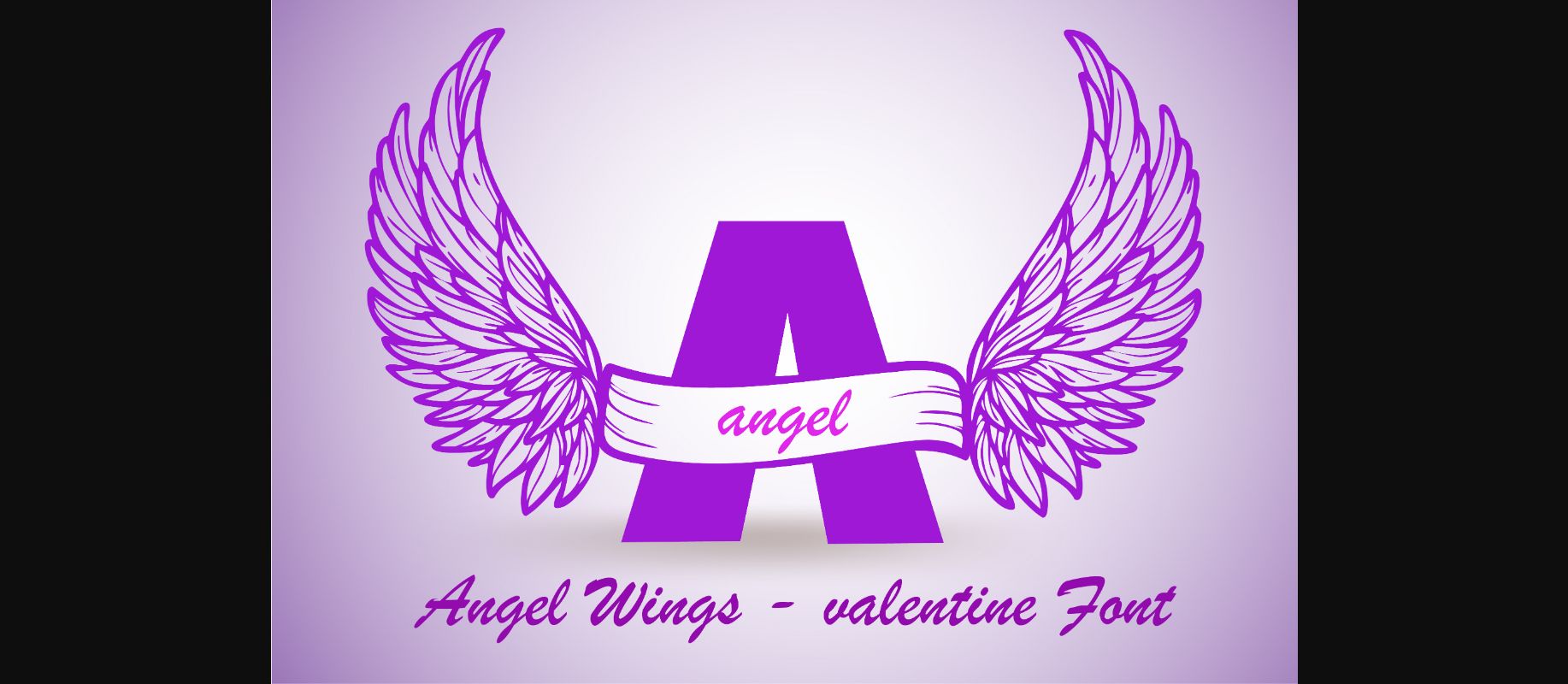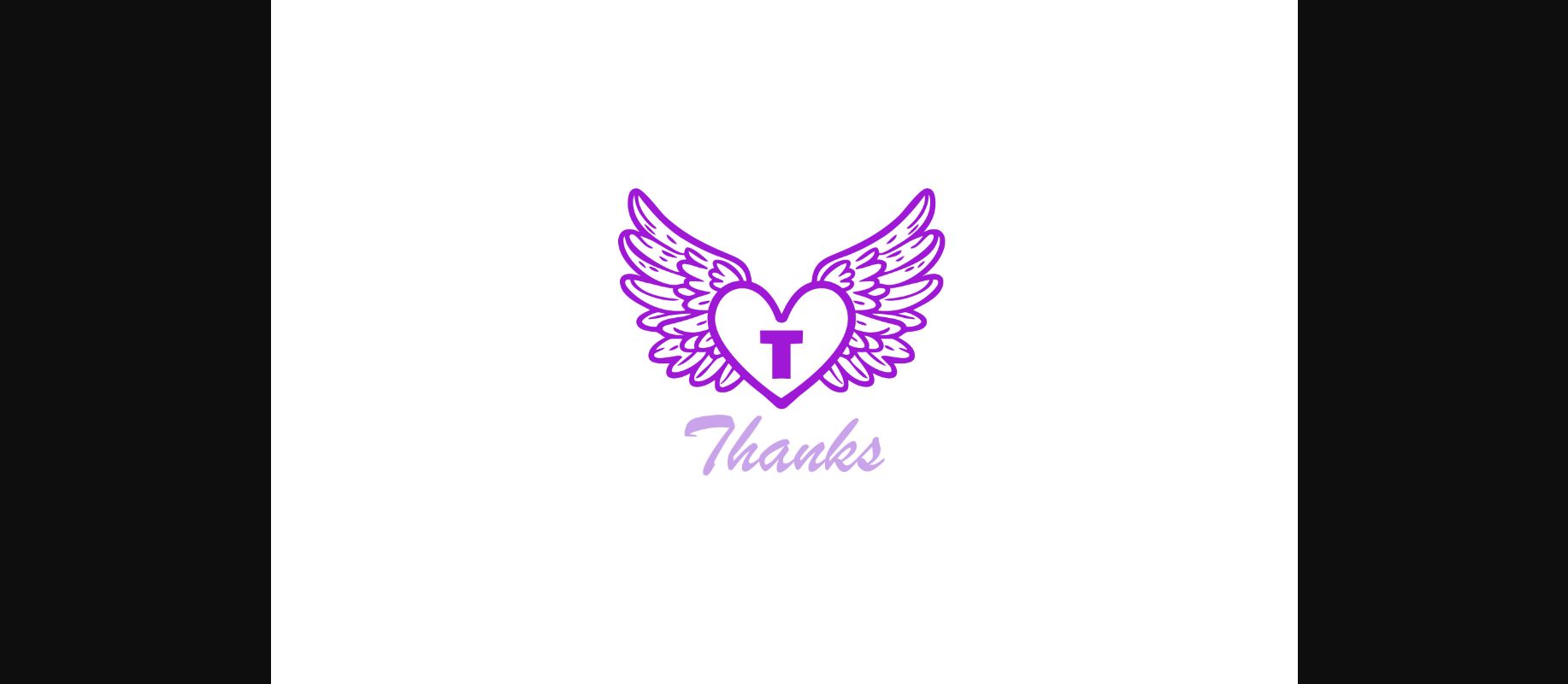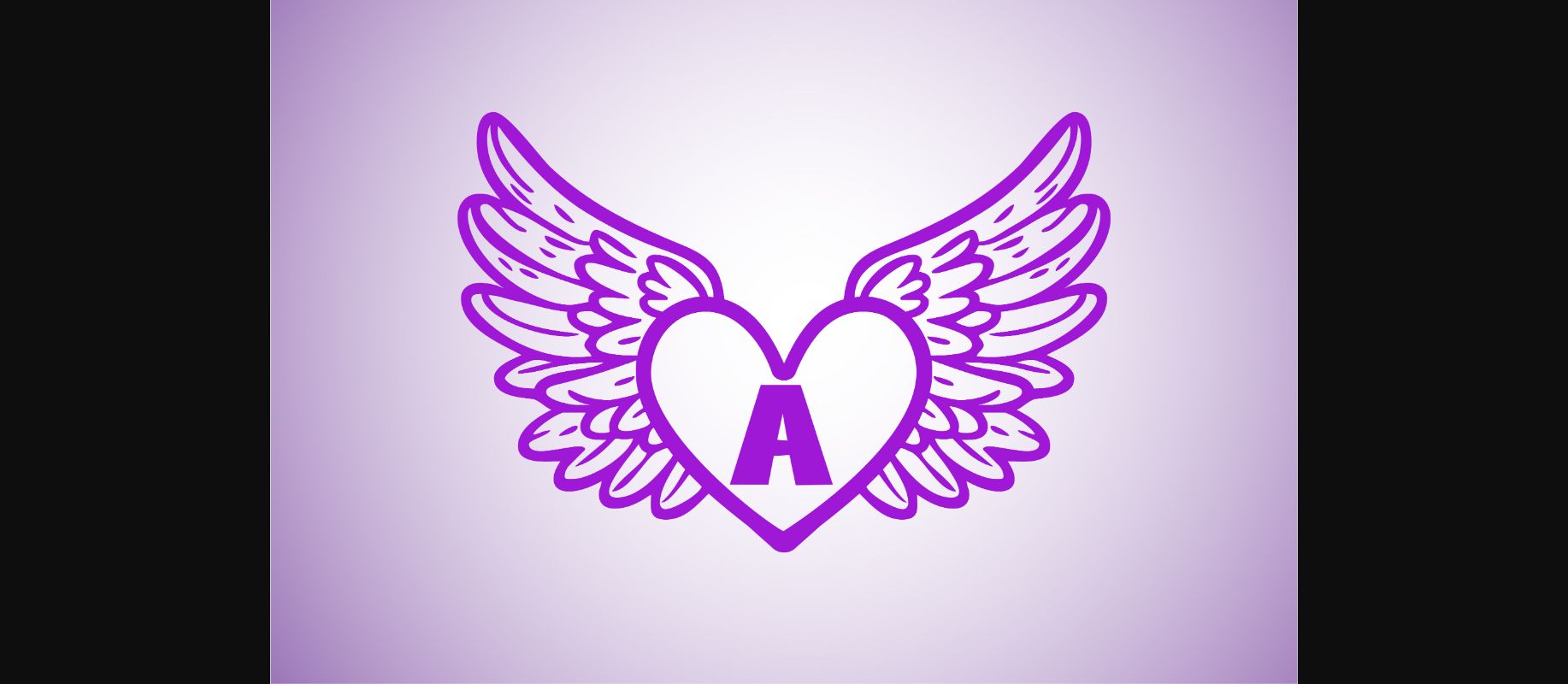
About Angel Wings Font
Angel Wings Monogram is a captivating decorative font, merging hearts and wings for a stunning design. Its unique charm adds celestial elegance, perfect for various themes. Beyond aesthetics, it creates emotional connections, making a memorable impact.